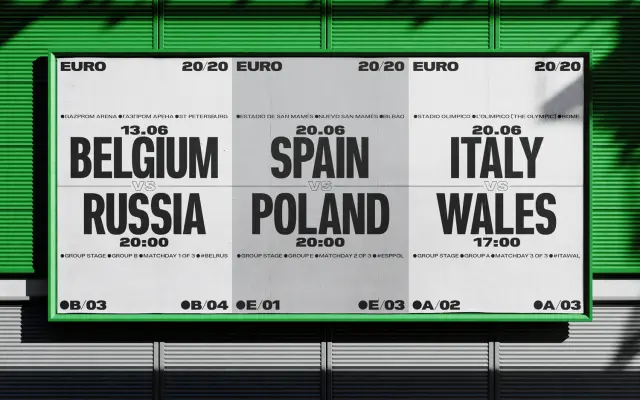
A remastered neo-grotesque in nine weights and five widths, built for range and typographic consistency across contemporary design work.
Drawn in the tradition of Helvetica and Univers, this reworked version of the original Nuber family tightens letter shapes and introduces a five-width system spanning Condensed to Extended. Each width runs across nine weights with matching italics, giving 90 fonts in total and 750 characters per style. OpenType features include seven numeral variants, fractions, case-sensitive forms and language support for Latin and Cyrillic scripts.
Explicitly described as a neo-grotesque sans-serif, inspired by mid-century grotesques Helvetica and Univers, with a systematic width and weight range characteristic of that tradition.